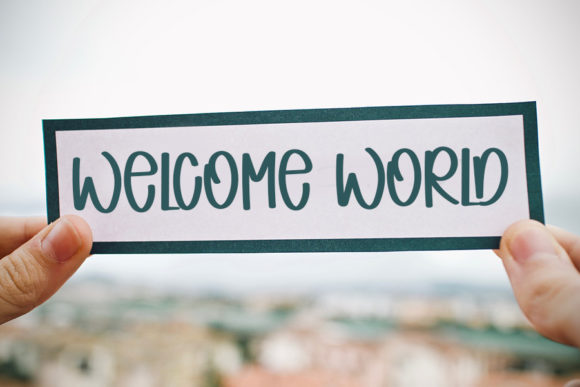
Introduction to Jelly Boho Font
Have you ever stared at a blank page, waiting for inspiration to strike? For designers, those moments can be the most frustrating and exciting at the same time. But what if you had a secret tool that could spark creativity and elevate your work? Enter the Jelly Boho Font, a cool, brushed, and quirky handwritten font that’s about to become your new design BFF.
Key Features of Jelly Boho Font
- Unique, hand-drawn style with a bohemian flair, perfect for adding a touch of personality to designs.
- Features a transparent background, allowing for easy layering and customization in design projects.
- Perfect for use in creative projects, such as branding, typography, and graphic design, where a unique and eye-catching font is desired.
Honest Review: Jelly Boho Font
As a designer, I’m always on the lookout for high-quality design resources to elevate my creative projects. Recently, I came across the Jelly Boho Font, and I was excited to give it a try.
- ✨ Unique and eclectic style that’s perfect for bohemian-inspired designs
- ✨ Transparent background, making it easy to use with other design elements
- ⚠️ Limited character set, which may not be suitable for longer blocks of text
- ⚠️ Some letters may require manual tweaking to achieve the desired look
Overall, I’m impressed with the Jelly Boho Font’s unique style and high-quality design. While it may have some limitations, it’s a great addition to any designer’s toolkit, especially for creative projects that require a bohemian vibe. With a little creativity, I’m confident that designers can make the most of this fantastic design resource.
Common Use Cases for the Jelly Boho Font
The Jelly Boho Font is perfect for a variety of creative projects, including:
- Wedding invitations and decorations
- Graphic designs and illustrations
- Home decor and stationery
Tips for Getting the Most Out of the Jelly Boho Font
To get the most out of the Jelly Boho Font, be sure to:
- Use it on a transparent background for a bohemian look
- Pair it with other fonts for a unique and eclectic feel